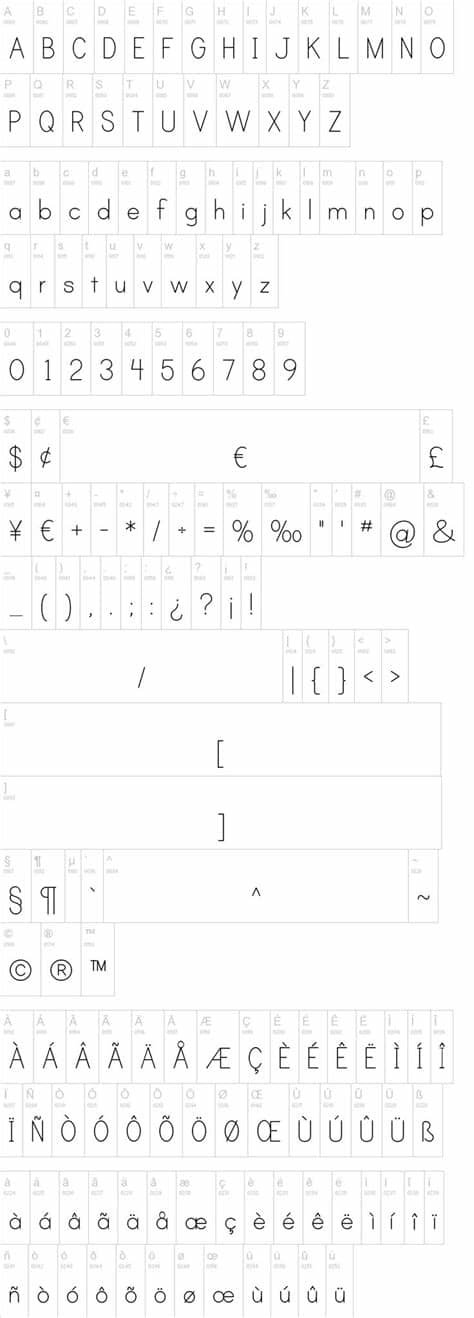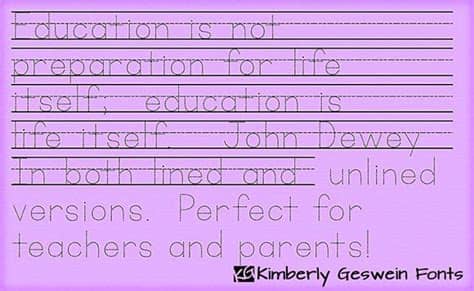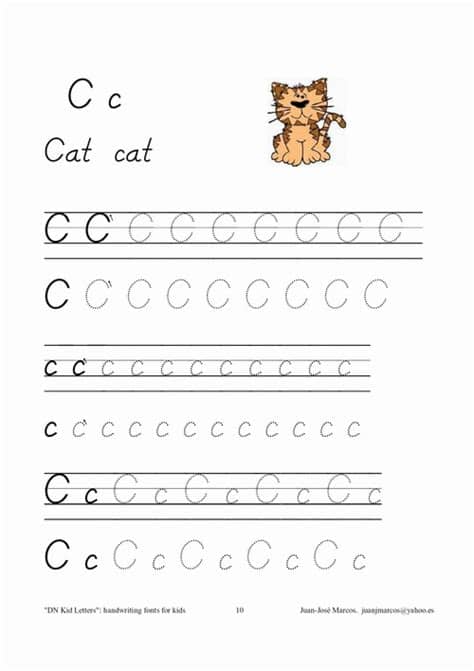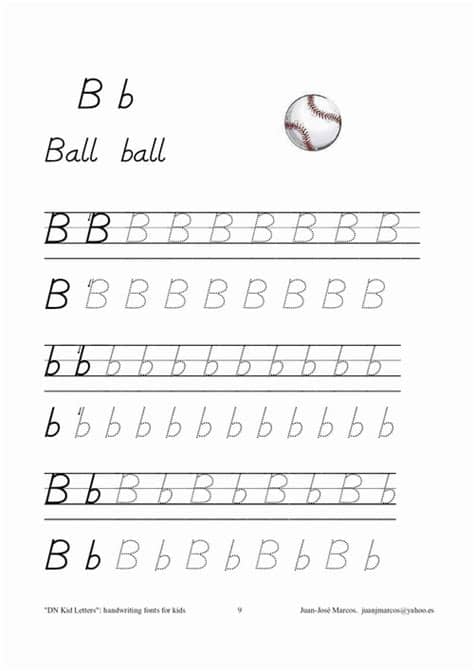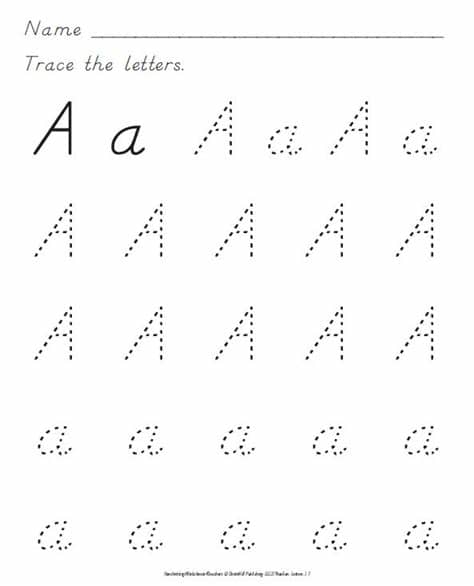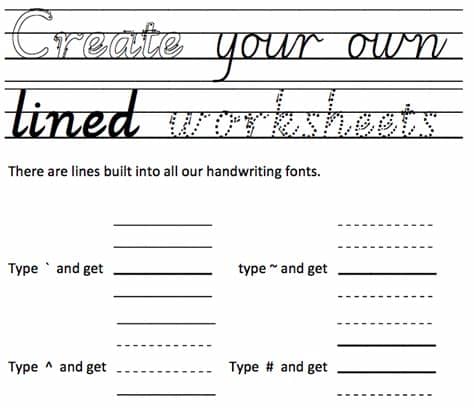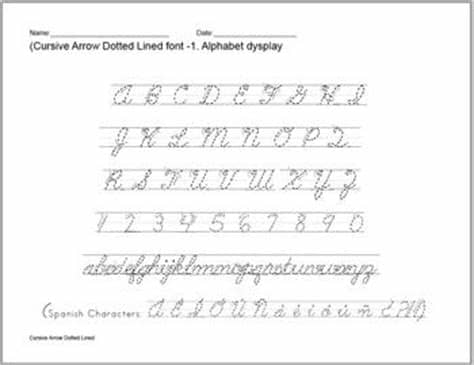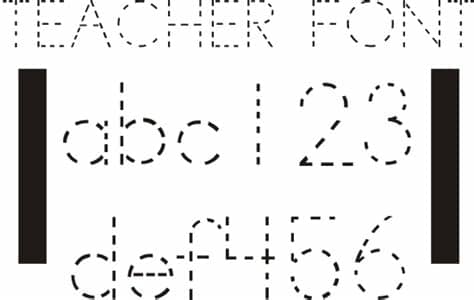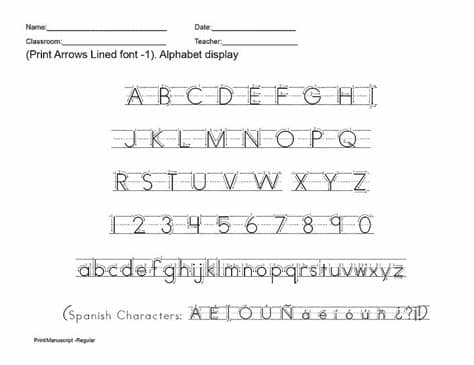
Font Teacher Handwriting Practice With Lines : 7 Free Fonts - From One Teacher to Another - KindergartenWorks / Quickly create your own professional looking student worksheets with this easy to use handwriting lines font.. This will result in an extra line of 'blanks' at the end of the worksheet that can just be crossed out. It appears with one dotted. Benefits of handwriting practice include increased brain activation and improved performance across all. That's right even writing in print is better for you that typing. Quickly create your own professional looking student worksheets with this easy to use handwriting lines font.
Looking for handwriting teacher fonts? Free printable english handwriting practice worksheets in print manuscript and cursive script fonts. Practicing difficult letters, like cursive f or cursive z. Dotted lines for writing practice under fontanacountryinn com, handwriting practice lines overlay pack of 6 large semi rigid, handwriting practice sheet educational children game printable, tracing lines for toddlers handwriting dotted lines dotted font handwriting practice tracing. They have been rewritten to use sweeping lines instead of static fonts.
The uneven letters (with bold and thinner letters) it looks as image via 1001 fonts. Create your own custom handwriting worksheets for handwriting practice! But there's something unique about cursive that makes it just so good for the brain. Quickly create your own professional looking student worksheets with this easy to use handwriting lines font. That's right even writing in print is better for you that typing. The victor handwriting font has a truly handwritten feel; Teacher print wordt geleverd als een ttf en school. Worksheetworks.com is an online resource used every day by thousands of teachers, students and parents.
Browse by alphabetical listing, by style, by author or by popularity. The uneven letters (with bold and thinner letters) it looks as image via 1001 fonts. Create your own custom handwriting worksheets for handwriting practice! This will result in an extra line of 'blanks' at the end of the worksheet that can just be crossed out. See more ideas about cursive writing the draw write now lessons work with any handwriting style. Join the popular membership section!! Quickly create your own professional looking student worksheets with this easy to use handwriting lines font. Our free, printable handwriting worksheets provide practice writing cursive letters, words and sentences. The solid line version of jardotty. It appears with one dotted. Print out individual letter worksheets or assemble them all into a all handwriting practice worksheets have are on primary writing paper with dotted lines so students learn to form the heights of the letters correctly. The best selection of handwriting fonts for windows and macintosh. Free fonts for teachers are cropping up everywhere.
Handwriting practice paper with dashed center line. Every font is free to download! Archive of freely downloadable fonts. It comes in a clean and texture. Quickly create your own professional looking student worksheets with this easy to use handwriting lines font. Any other uses are forbidden without express written consent of the teacher's corner. Practice your penmanship with these handwriting worksheets from k5 learning. Free fonts for teachers are cropping up everywhere.
The penmanship print upright manuscript font is an excellent choice for teaching young children their block letter shapes.
The solid line version of jardotty. See more ideas about handwriting practice, handwriting, teacher. Type your content and change letter size, color and line. Great for new teachers, student teachers , homeschooling and teachers who like creative ways to teach. The victor handwriting font has a truly handwritten feel; These teacher fonts help students learn both print and cursive writing. Browse by alphabetical listing, by style, by author or by popularity. Dyslexie a font to help those who tend to reverse letters of just have a hard time telling christopher jarman cursive handwriting font. Dotted lines for writing practice under fontanacountryinn com, handwriting practice lines overlay pack of 6 large semi rigid, handwriting practice sheet educational children game printable, tracing lines for toddlers handwriting dotted lines dotted font handwriting practice tracing. ✓ click to find the best 71 free fonts in the handwriting teacher style. Join the popular membership section!! It's probably best used for practicing separate letters rather then putting them together in words, but 10. Others are basic alphabet tracing.
This font also contains a set of dingbats that helps with practicing elements of cursive writing. Every font is free to download! Practice your penmanship with these handwriting worksheets from k5 learning. The solid line version of jardotty. They have been rewritten to use sweeping lines instead of static fonts.
The penmanship print upright manuscript font is an excellent choice for teaching young children their block letter shapes. Browse by alphabetical listing, by style, by author or by popularity. They have been rewritten to use sweeping lines instead of static fonts. Practice your penmanship with these handwriting worksheets from k5 learning. The best selection of handwriting fonts for windows and macintosh. The victor handwriting font has a truly handwritten feel; Every font is free to download! Maak kennis met teacher print!
Practice your penmanship with these handwriting worksheets from k5 learning.
Practicing difficult letters, like cursive f or cursive z. It comes in a clean and texture. The kids who practiced writing even if it was in print and not cursive displayed significantly more neural activity that kids who were simply looking at letters. This font also contains a set of dingbats that helps with practicing elements of cursive writing. Free fonts for teachers are cropping up everywhere. It's probably best used for practicing separate letters rather then putting them together in words, but 10. ✓ click to find the best 71 free fonts in the handwriting teacher style. Whether you are a classroom teacher or a parent teaching kids numbers writing practice workbook. Others are basic alphabet tracing. But there's something unique about cursive that makes it just so good for the brain. Looking for handwriting teacher fonts? Any other uses are forbidden without express written consent of the teacher's corner. Dyslexie a font to help those who tend to reverse letters of just have a hard time telling christopher jarman cursive handwriting font.